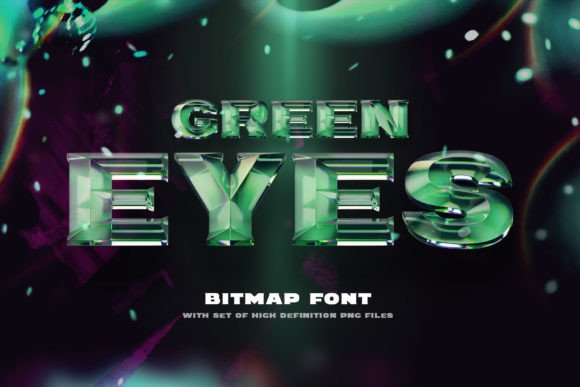
Behold the Green Eyes Font, a 3D-rendered typeface with a touch of enchantment, ready to add a sprinkle of magic to your creative pursuits! Step into a world of captivating typography where your words dance with elegance and charm.
Picture this: sparkling green glass letters, crafted with precision and artistry, reflecting the vibrant hues of nature. Each character shimmers with a colorful dispersion effect, as if infused with the joyful spirit of spring. The Green Eyes Font is not just a collection of letters; it's an expression of creativity and whimsy, waiting to transform your designs into breathtaking masterpieces.
Imagine the possibilities: handwritten notes that sparkle with personality, invitations that shimmer with elegance, posters that pop with vibrancy, and social media posts that captivate your audience. Let the Green Eyes Font elevate your branding with a touch of distinction and allure. Unleash your imagination and watch as your words come alive with a dazzling brilliance that leaves a lasting impression.
From enchanting logos that draw the eye to eye-catching headlines that demand attention, the Green Eyes Font is the perfect choice for designers, marketers, and creative professionals who dare to stand out. Whether you're working on a playful project or a serious endeavor, this font will infuse your designs with a sense of wonder and delight.
But wait, there's more! The Green Eyes Font isn't just aesthetically pleasing; it's also incredibly versatile. Its captivating design lends itself to a myriad of applications, including:
- Logo Designs: Create logos that sparkle with distinctiveness and leave a lasting impression on your customers.
- Branding Materials: Elevate your branding with stunning business cards, letterheads, and brochures that exude professionalism and charm.
- Social Media Graphics: Capture the attention of your followers with eye-catching social media posts and graphics that sizzle with creativity.
- Invitations and Flyers: Design invitations and flyers that shimmer with elegance and entice recipients to attend your events.
- Product Packaging: Make your products stand out on shelves with packaging that captivates customers and encourages them to make a purchase.
- Website Designs: Transform your website into a visual masterpiece with typography that dances across the screen, captivating visitors and enhancing their user experience.
- Art Prints and Posters: Create stunning art prints and posters that add a touch of magic to any room, whether it's your home, office, or creative studio.
With the Green Eyes Font, you're not just downloading a font; you're embarking on a journey of creativity and self-expression. Let your imagination soar as you witness your designs come to life with sparkling green glass letters that dance across the page. Embrace the allure of the Green Eyes Font and elevate your creative projects to new heights of enchantment.